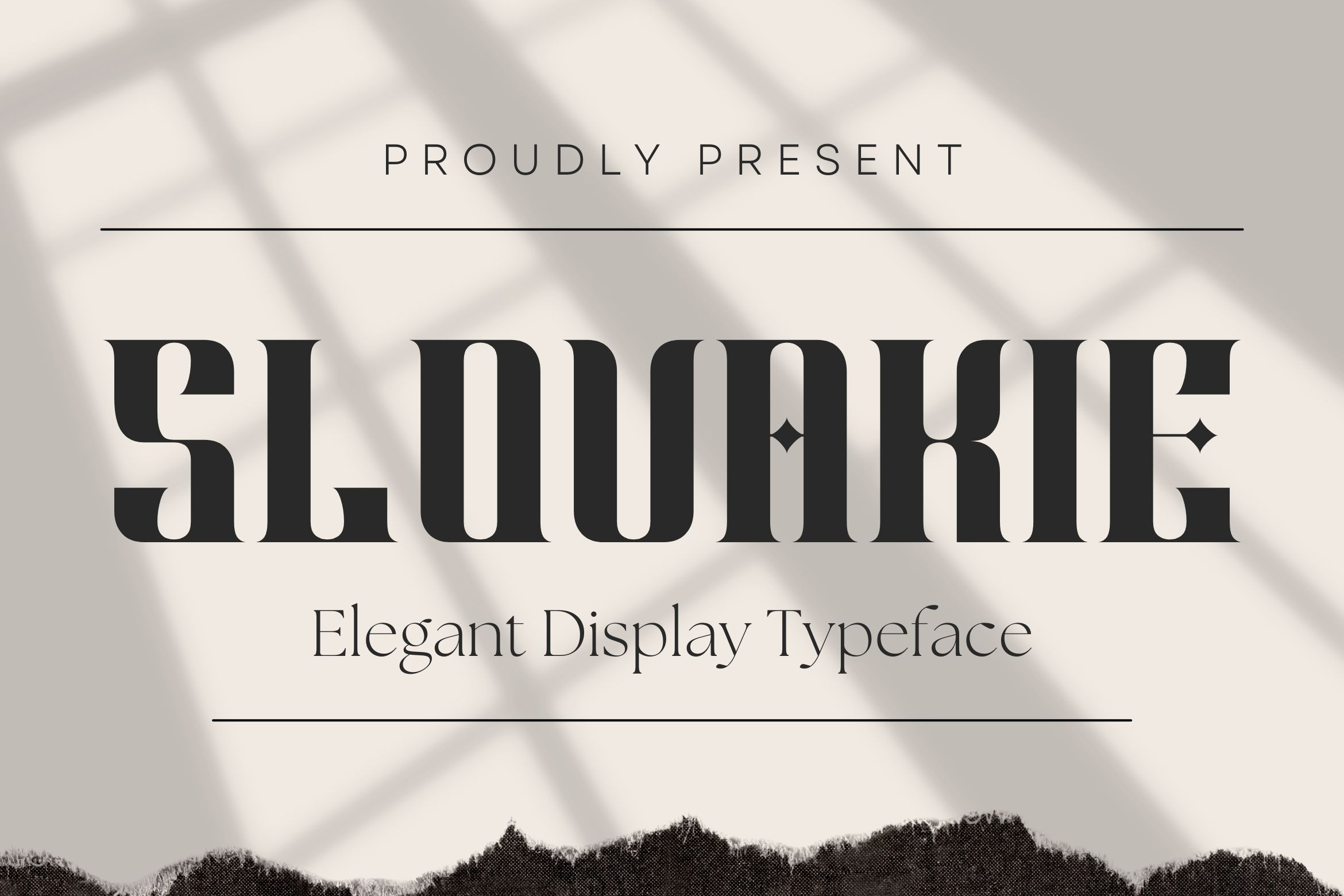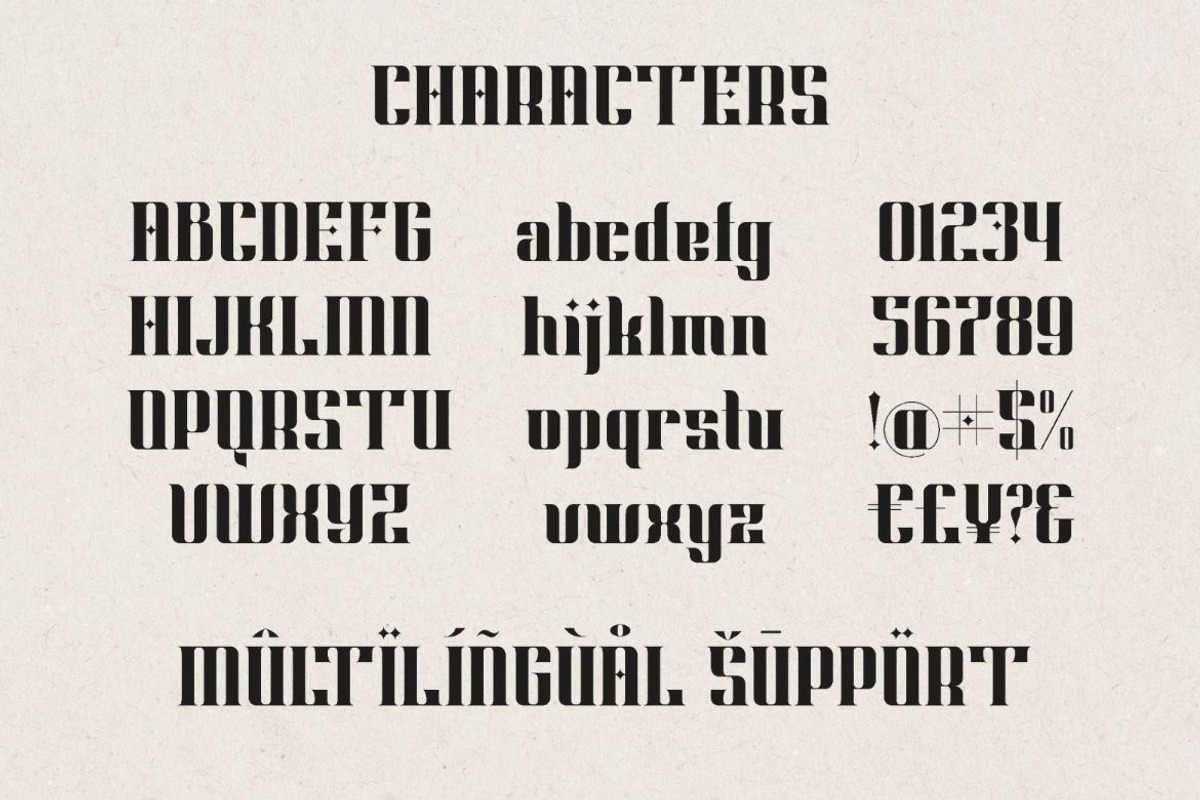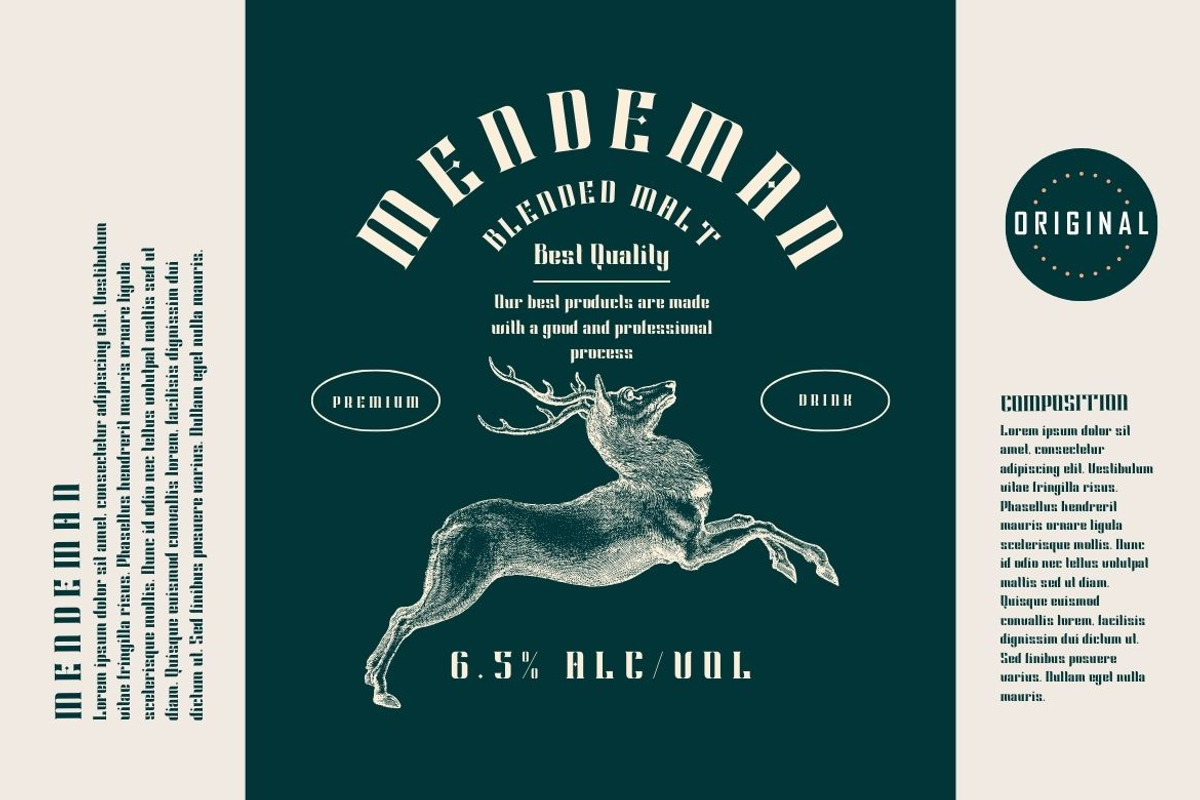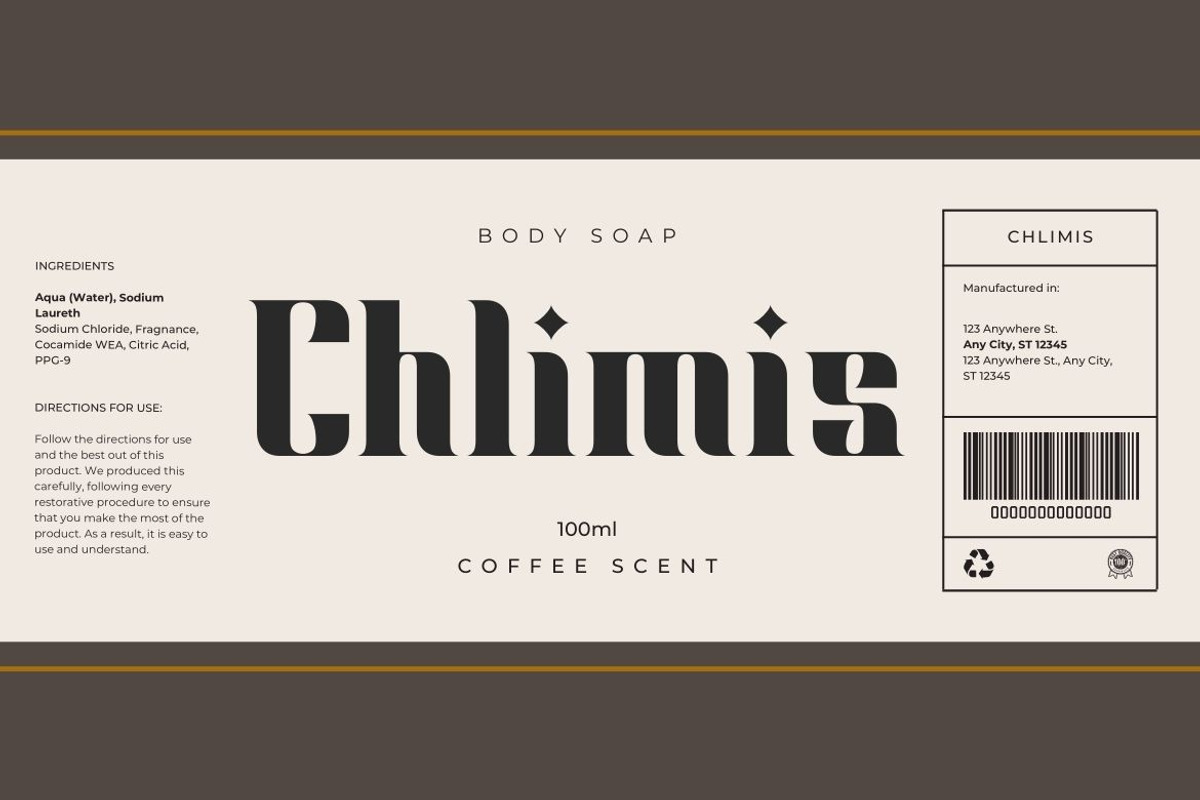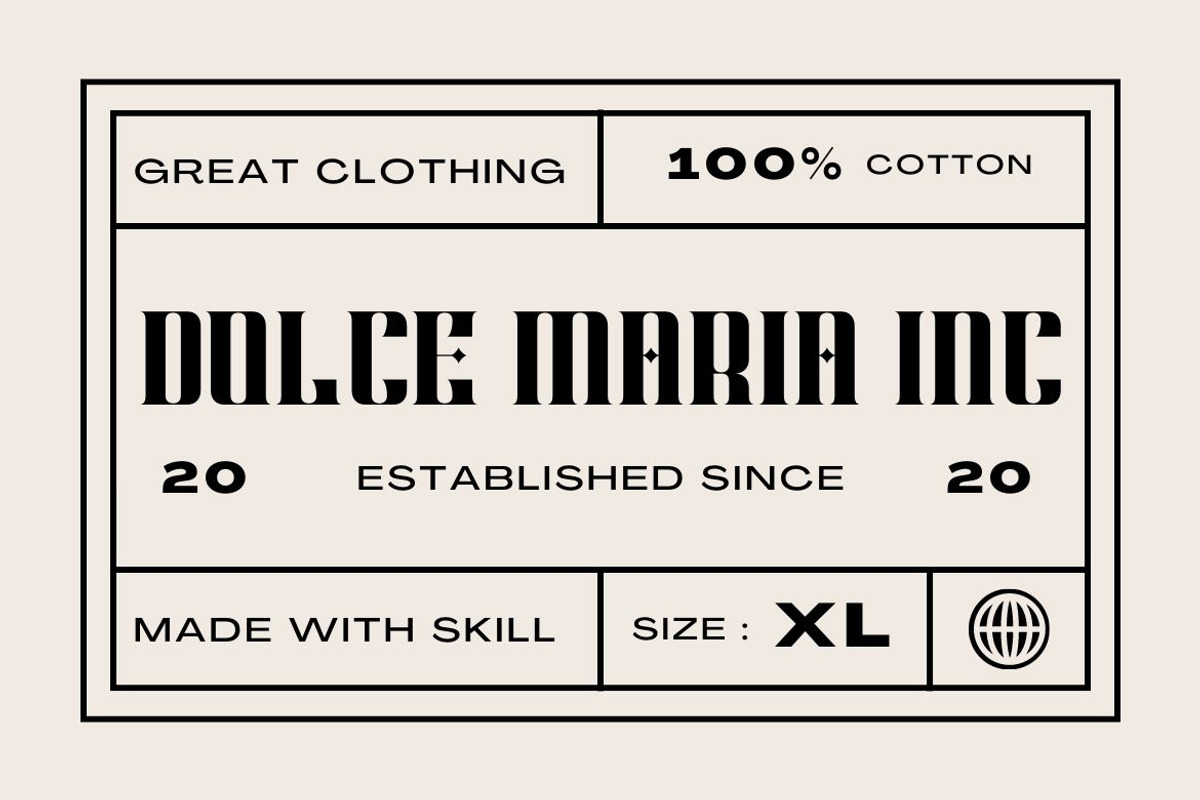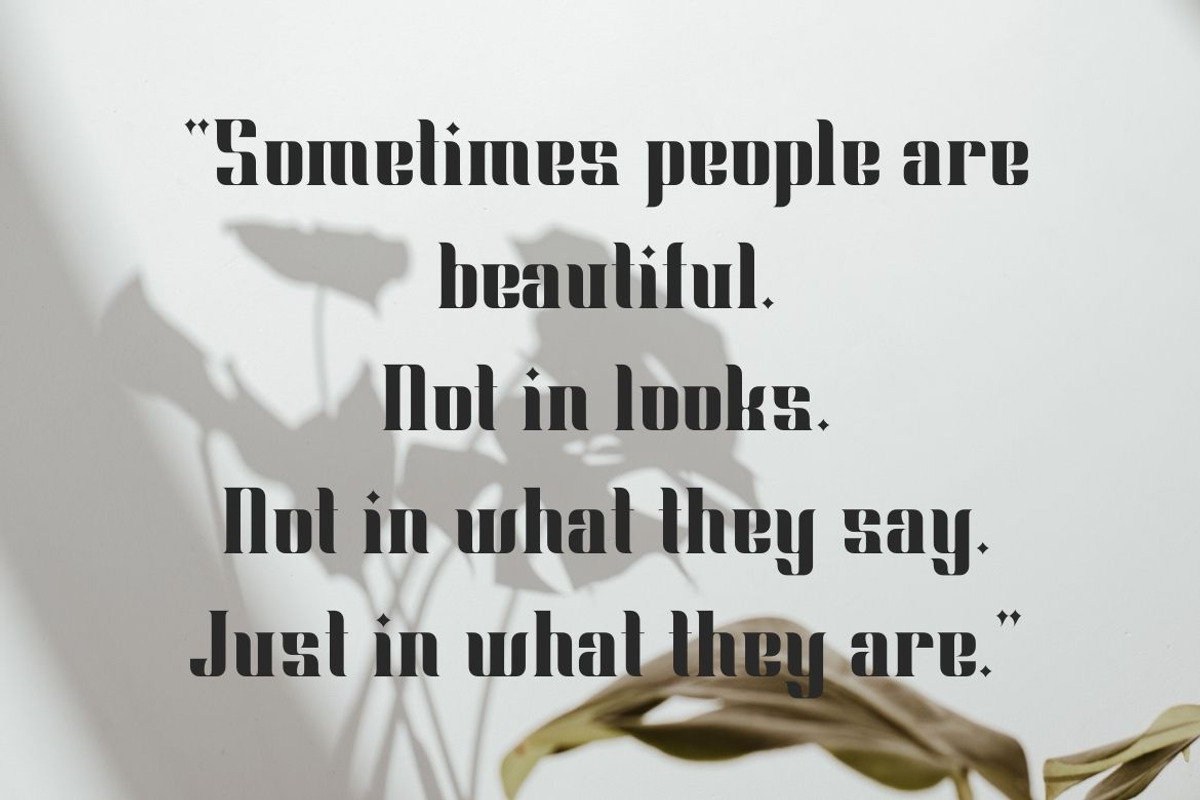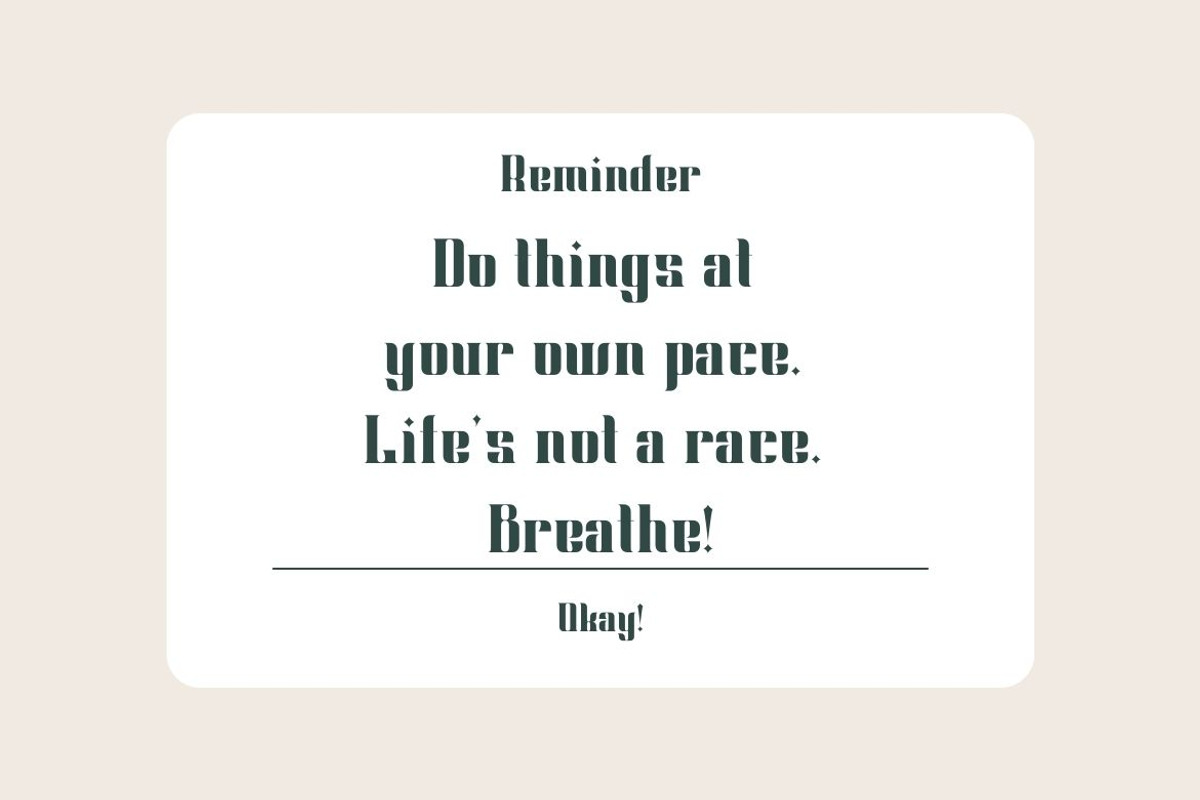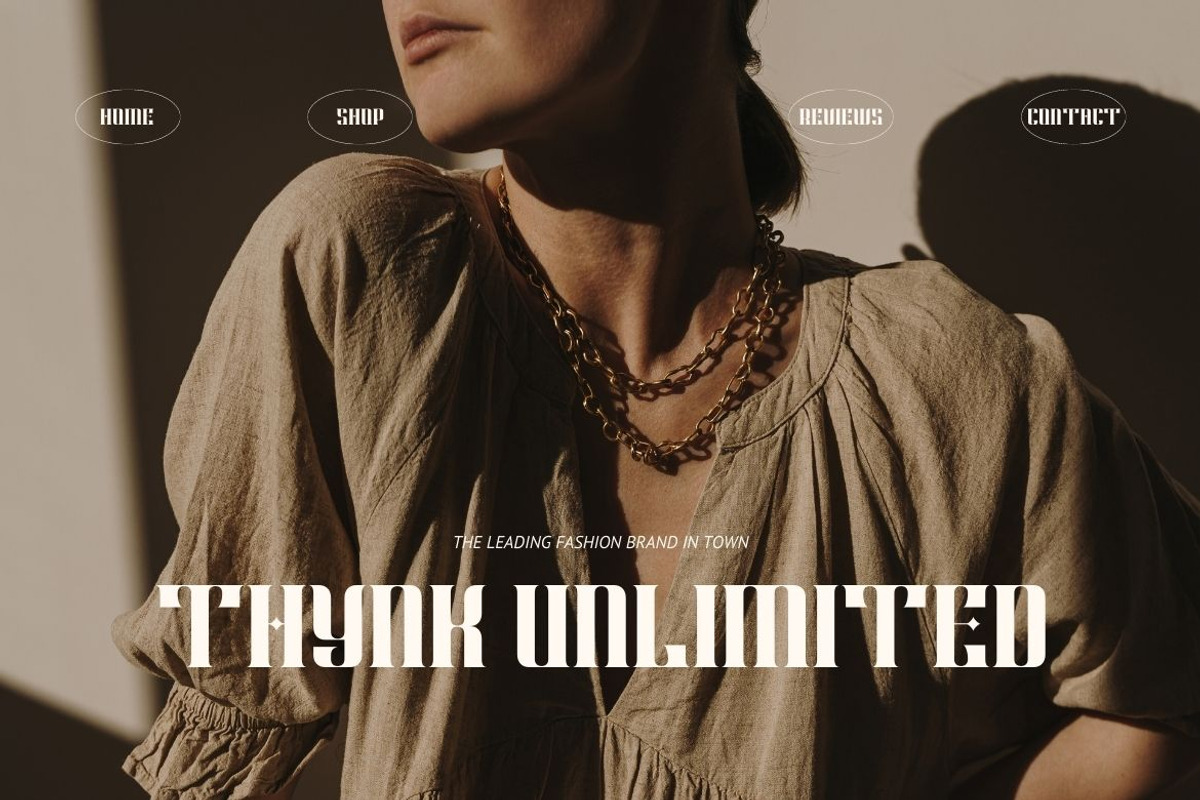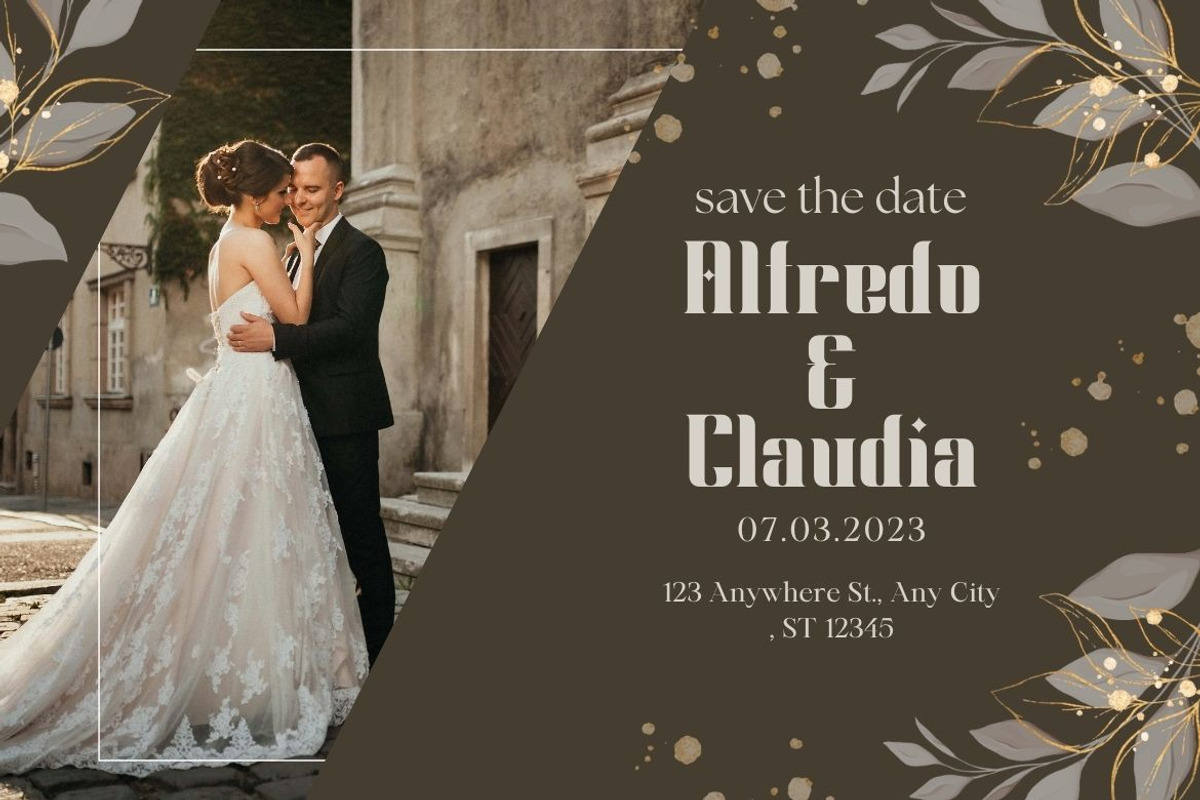
Slovakie Typeface
Introducing the new Slovakie Typeface!!! is a luxury and glamour display typeface,certainly not the kind of typeface you see everyday and Utterly unique.This font is both modern and nostalgic and works great for logos, magazine, social media,etc. Already matched up and ready to be used together for your next design!